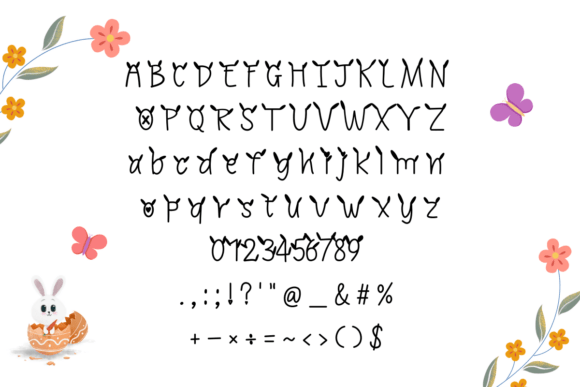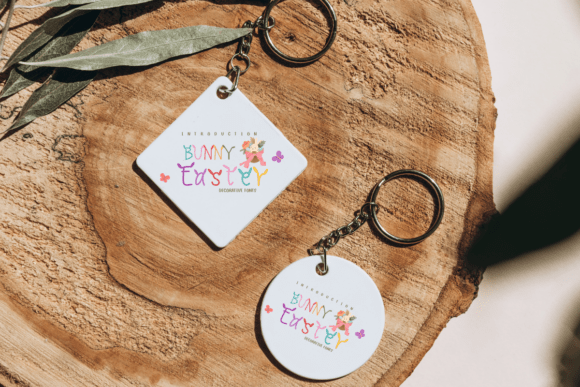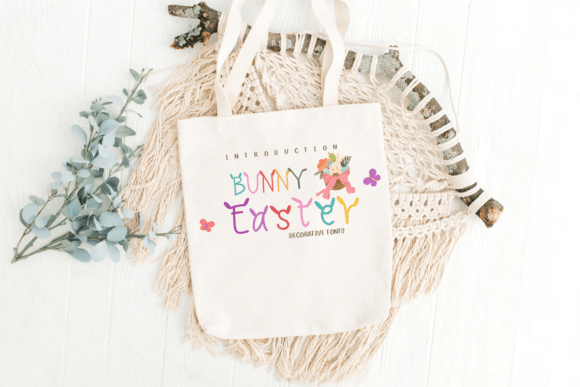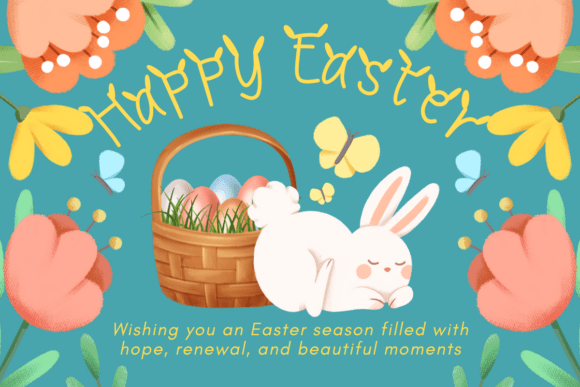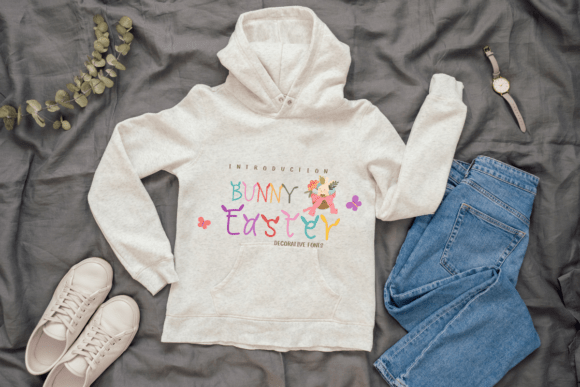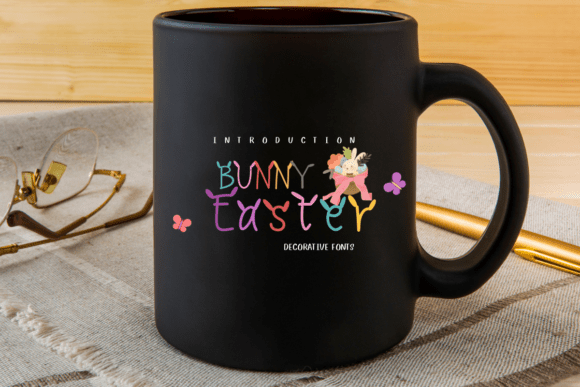
The Bunny Easter Font: A Playful Addition to Your Springtime Designs
I’ll never forget the time I was working on an Easter-themed project for a client, and I just couldn’t find the right font to match the playful, whimsical vibe they were looking for. I scoured the internet, tried out dozens of fonts, but nothing seemed quite right. That was until I stumbled upon the Bunny Easter font. With its adorable bunny ear accents and soft curves, it was the perfect fit for the project. In this article, I’ll be sharing my experience with the Bunny Easter font, including what I love about it, how to use it, and some similar fonts you might enjoy.
A Personal Review of Bunny Easter
- ✨ The whimsical bunny ear accents on each letter add a playful touch to any design
- ✅ Soft, smooth curves make it perfect for Easter cards, holiday crafts, and classroom projects
- 🎨 The font’s bright and colorful personality is sure to bring a smile to anyone’s face
- 🤩 It’s incredibly versatile and can be used for a wide range of design projects, from seasonal branding to DIY crafts
While I absolutely adore the Bunny Easter font, there are a few things to keep in mind when using it. For example, ⚠️ some of the letters may appear a bit distorted when used at very small sizes. Additionally, 🤔 the font’s playful nature may not be suitable for more formal or professional design projects.
The Story Behind Bunny Easter
The Bunny Easter font was designed with one goal in mind: to capture the magic and playfulness of springtime. The designer, inspired by the adorable illustrations of Easter bunnies and spring flowers, created a font that would bring a smile to anyone’s face. With its cute bunny ear accents and soft curves, Bunny Easter is the perfect addition to any Easter-themed design project.
Q: What type of projects is the Bunny Easter font best suited for?
A: The Bunny Easter font is perfect for Easter cards, holiday crafts, classroom projects, and seasonal branding. Its playful personality makes it ideal for creative, fun projects.